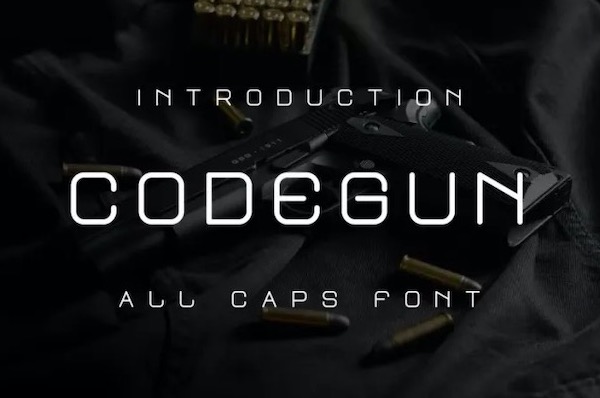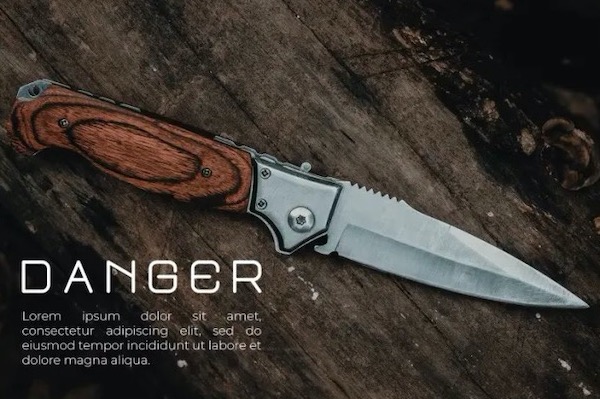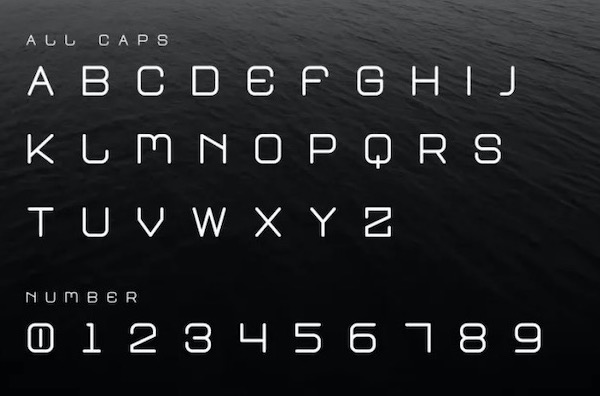
Codegun is a modern sci-fi Basic font that was created for your favorite projects along with a classy & friendly tech sans serif look. Perfectly suited on print/screen; it can be used freely for logotypes, e-books, and mobile applications and is especially food for headlines, banners, posters, websites, magazines, etc.
Codegun Sans Serif Font